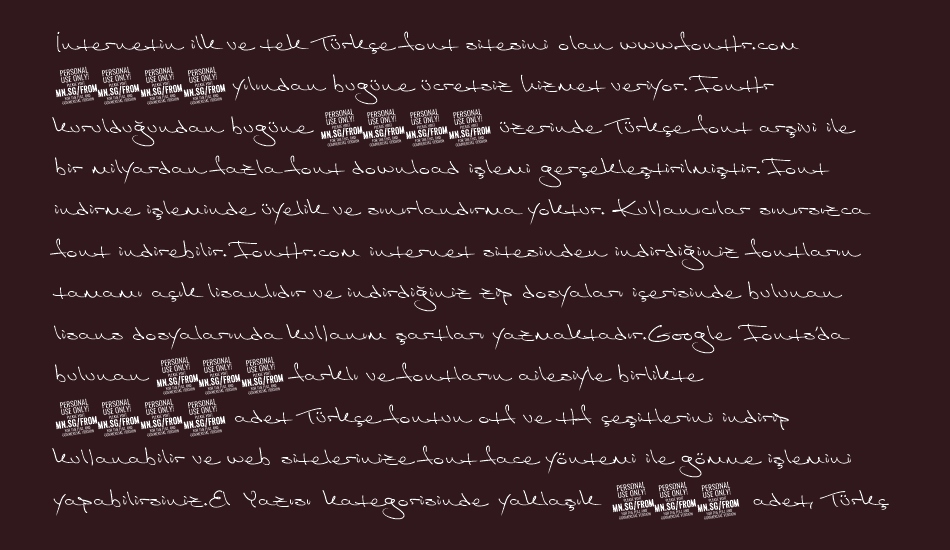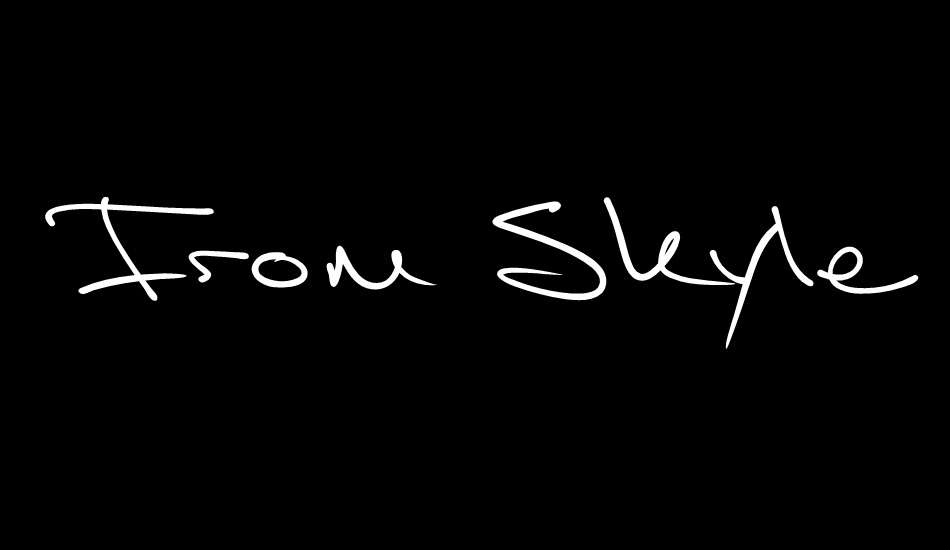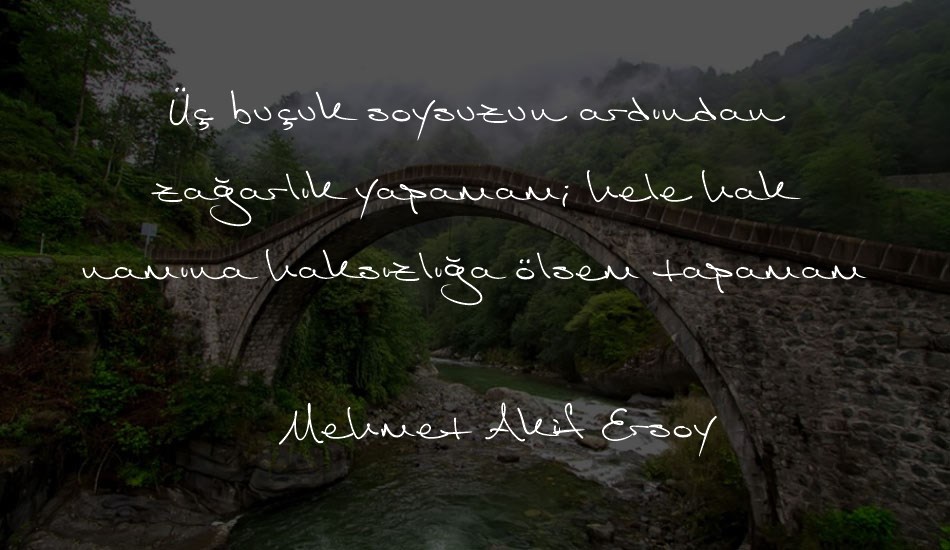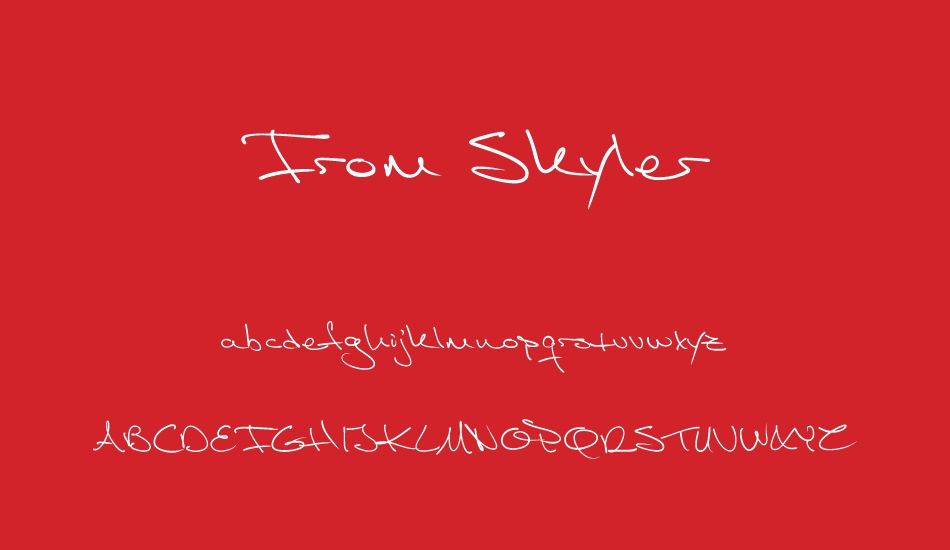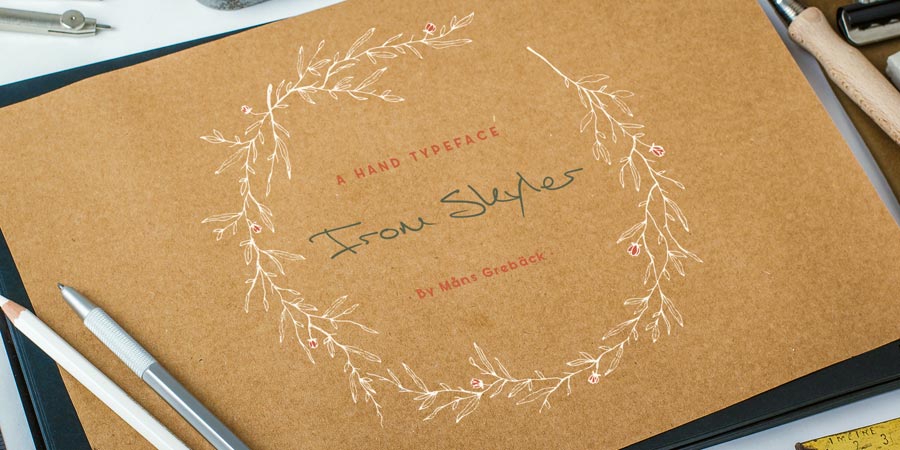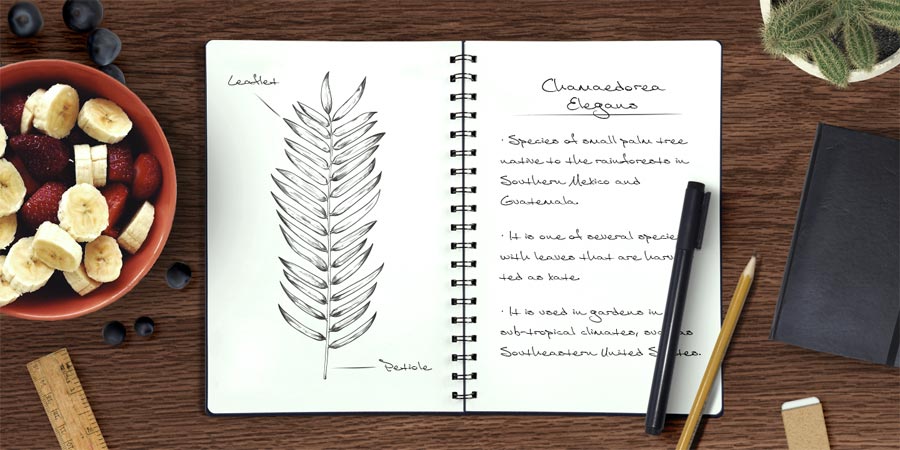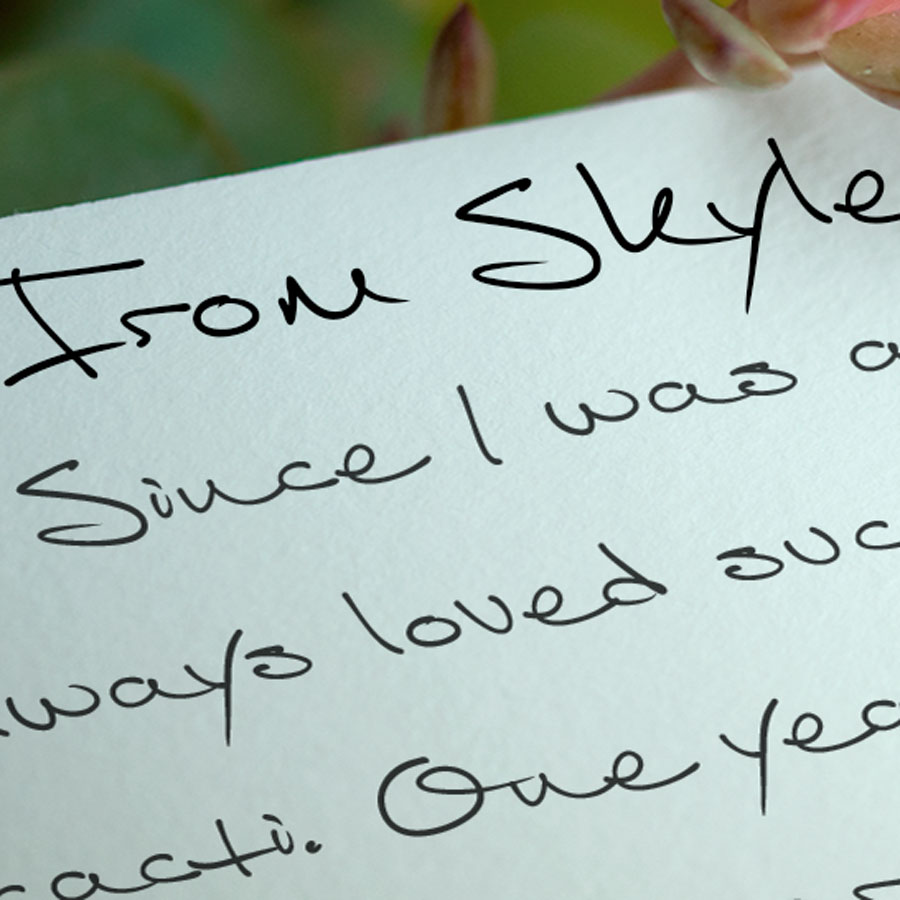
From Skyler font
From Skyler is a fast and wild handwriting font.
The typeface is created by M?ns Greb?ck and supports a wide range of latin languages.
It has several alternate characters, both stylistic and contextual, to make the variation within the lettering more natural.